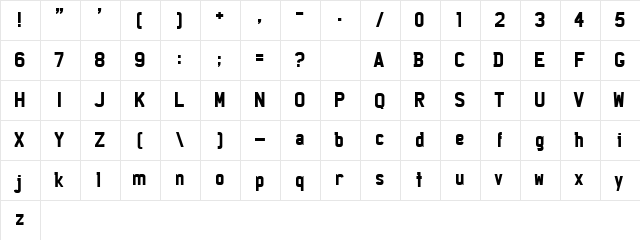
Licenz Plate Regular
Design Context for Licenz Plate Typeface
Licenz Plate is a composed and adaptable typeface that performs quietly and consistently across a wide range of design contexts.